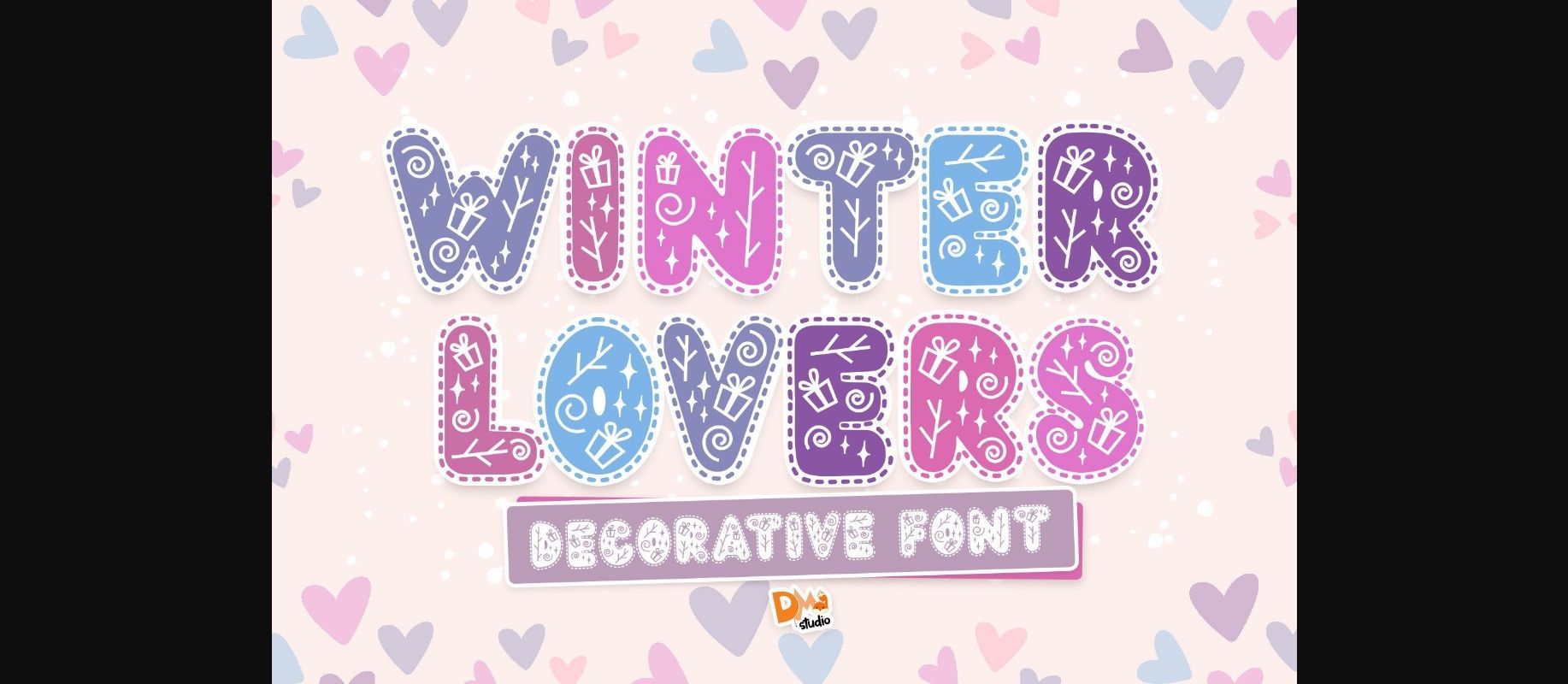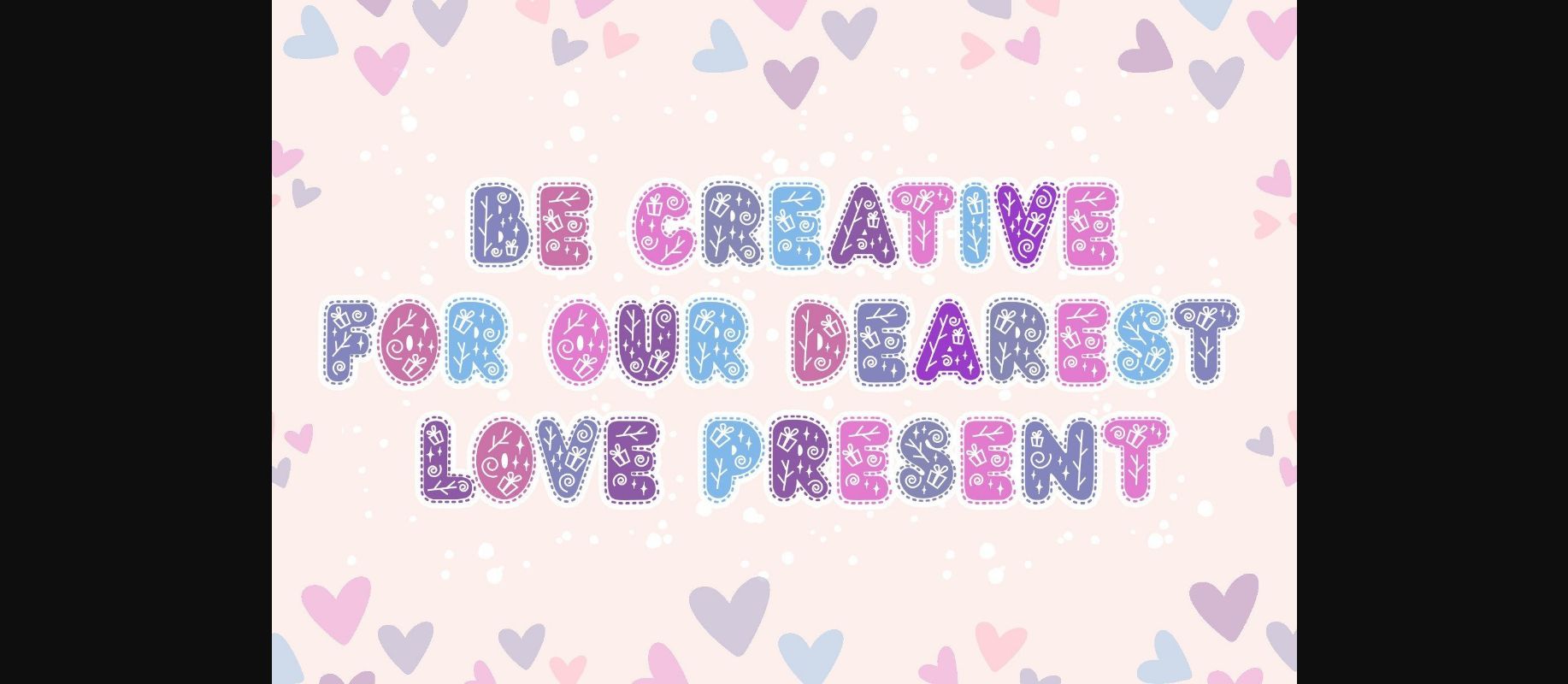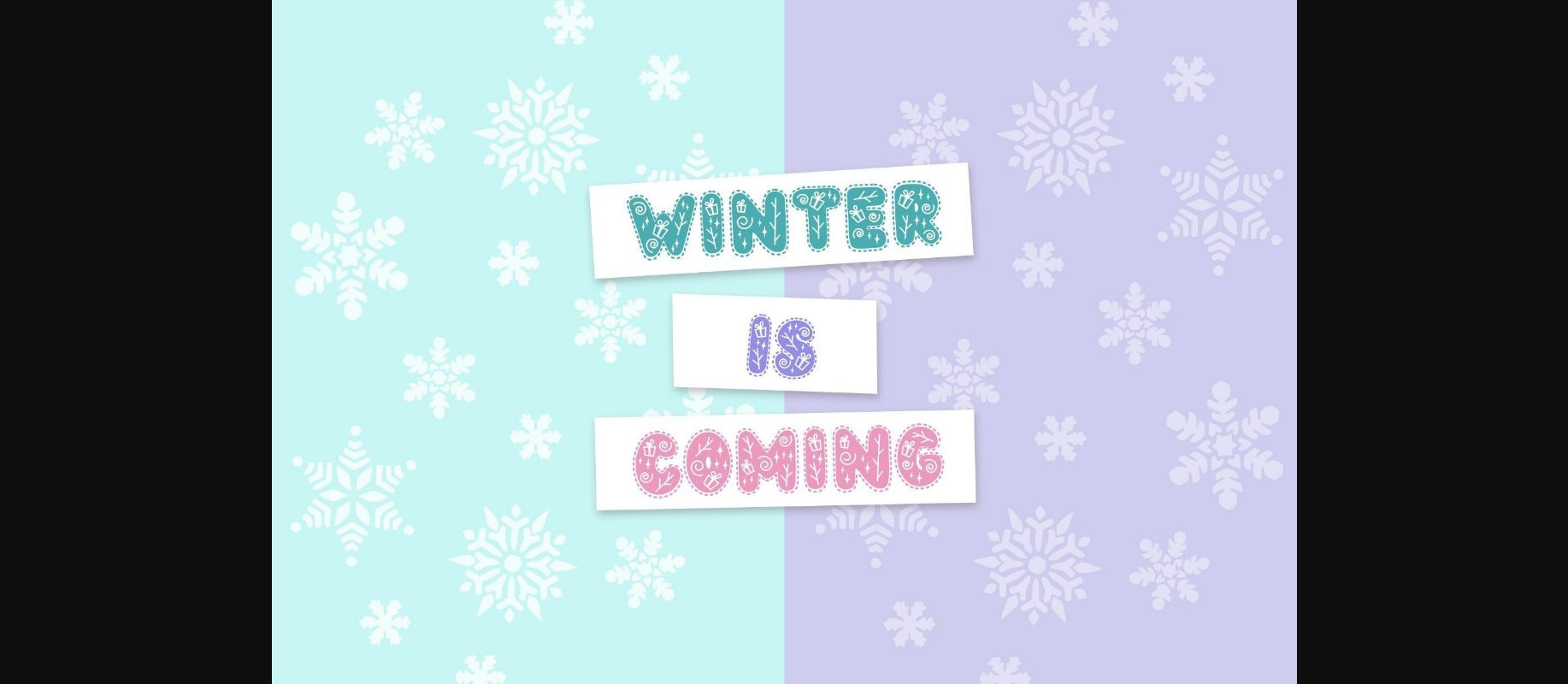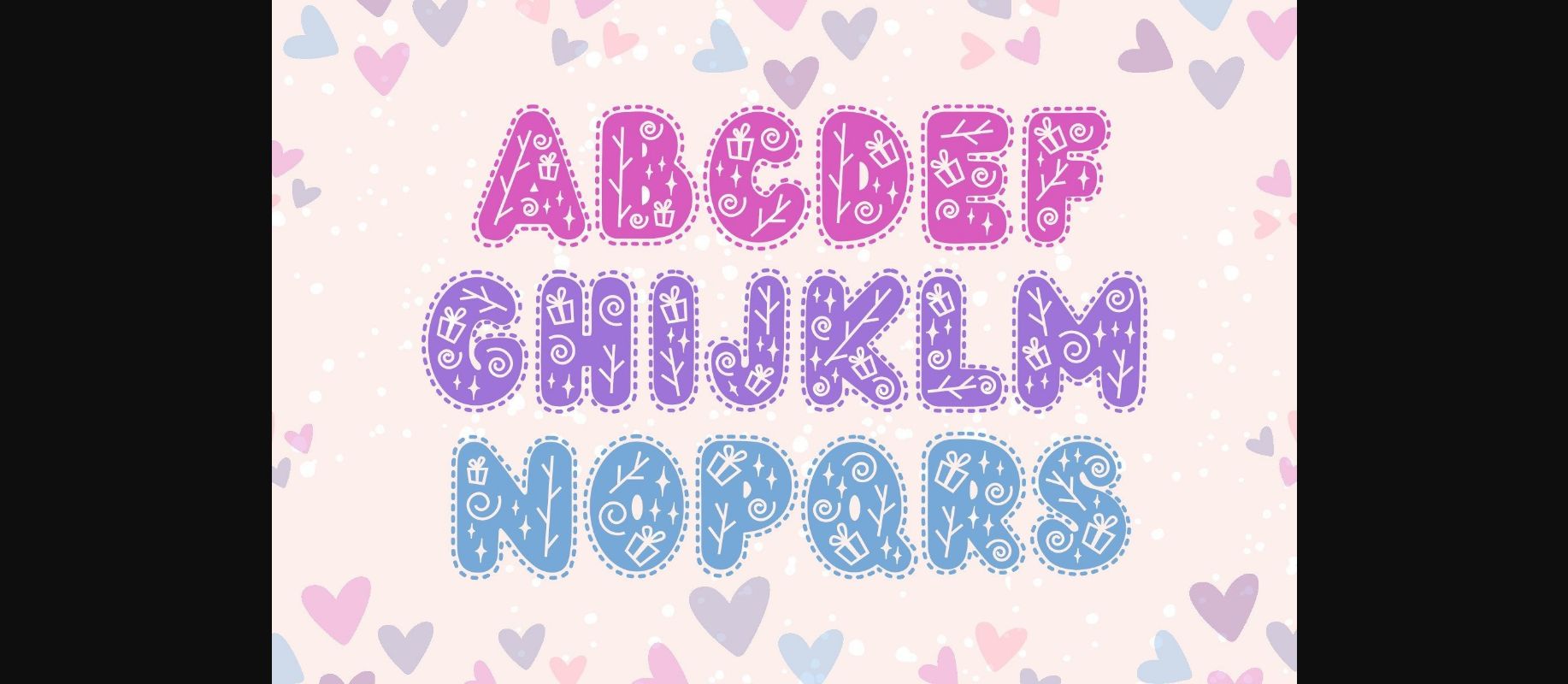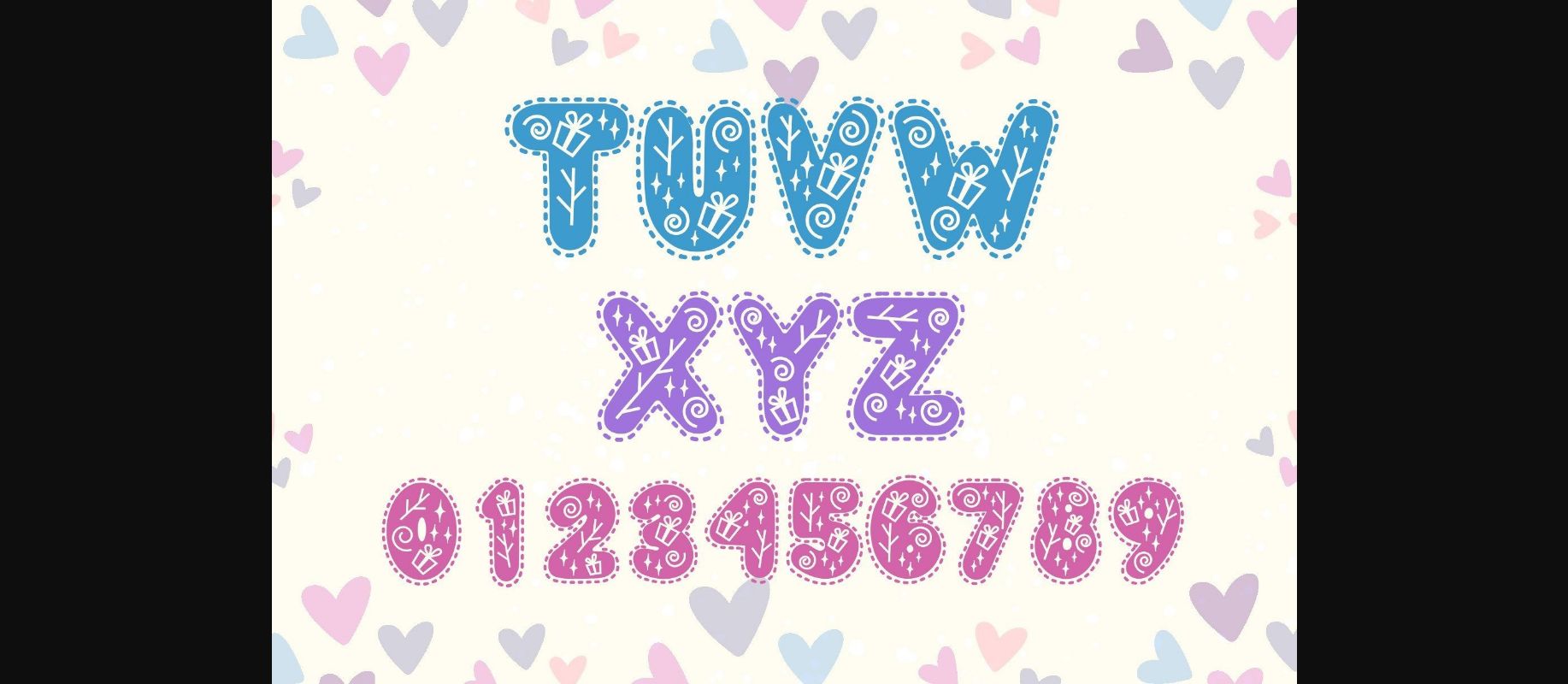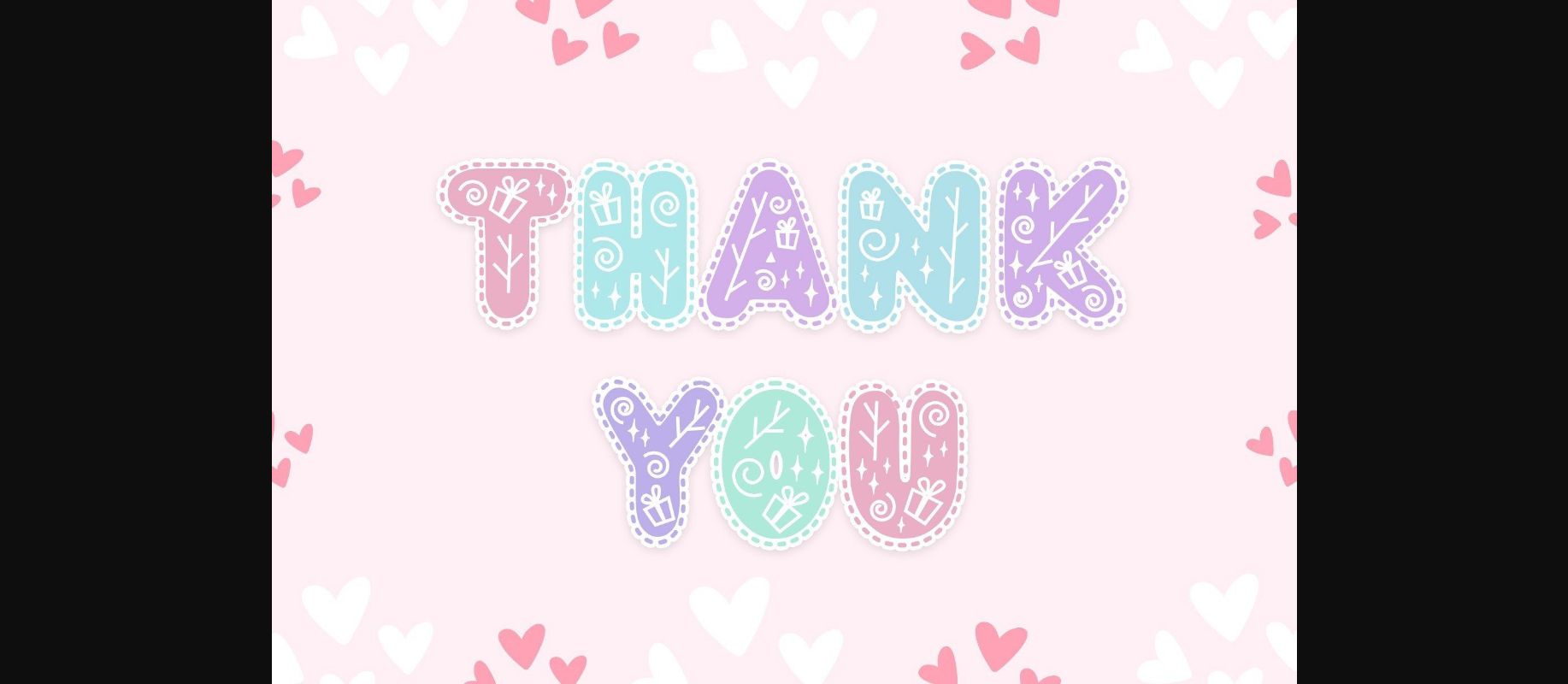
About Winter Lovers Font
Winter Lovers is a fun and crafty decorative font.
Cute and modern, this font is perfect for making arts and unique designs, or even just for your collection asset.